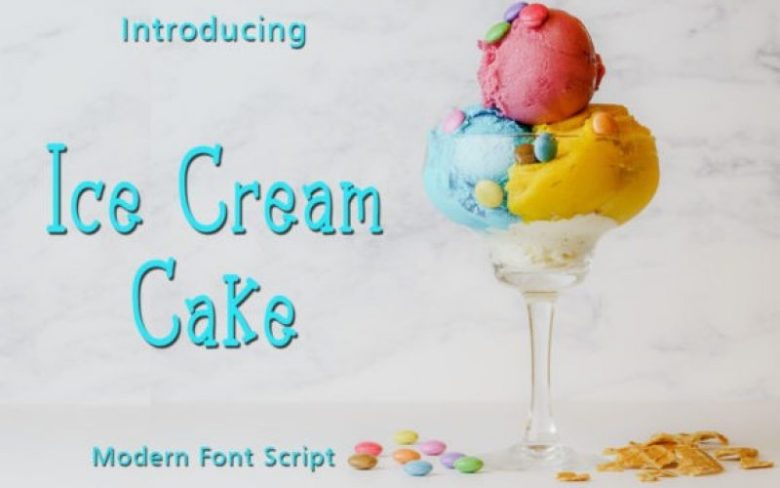
Ice Cream Cake Display Font
Ice Cream Cake is a cute and quirky handwritten font. Add this sweet font to each of your creative ideas and notice how it makes them stand out!